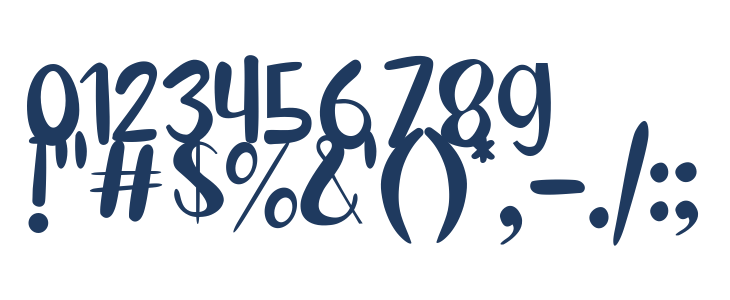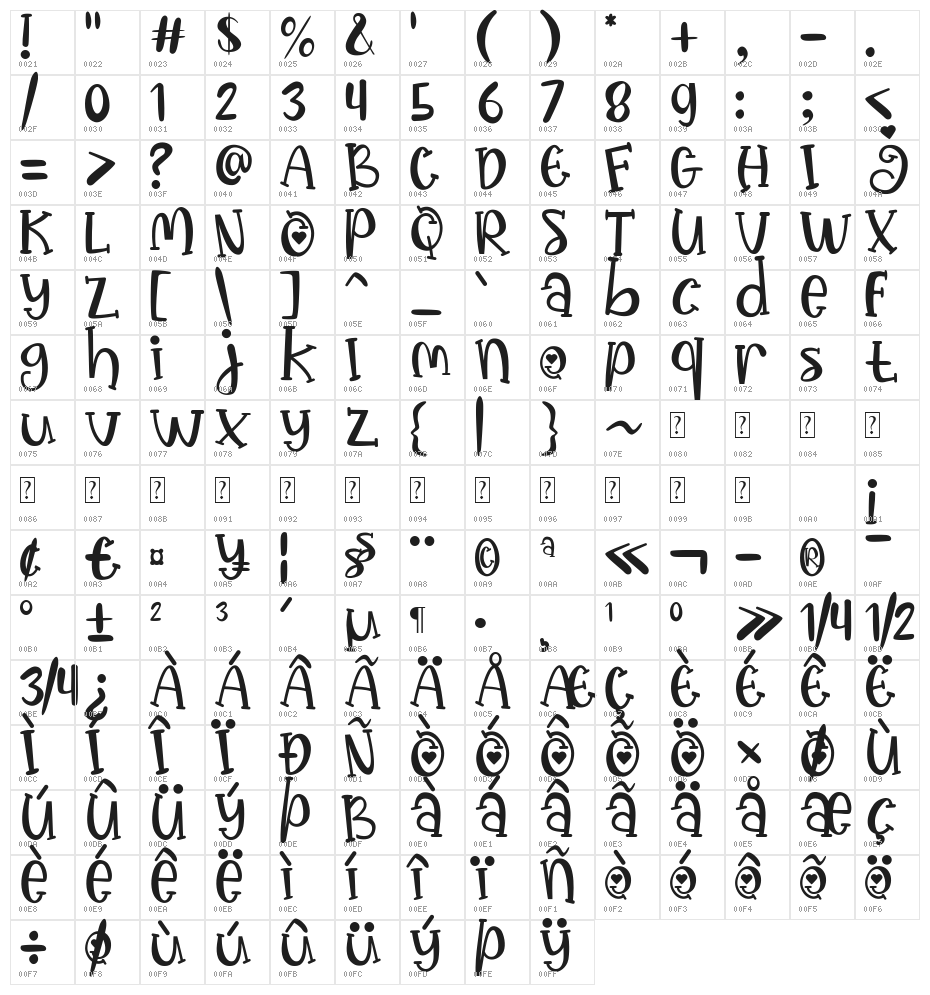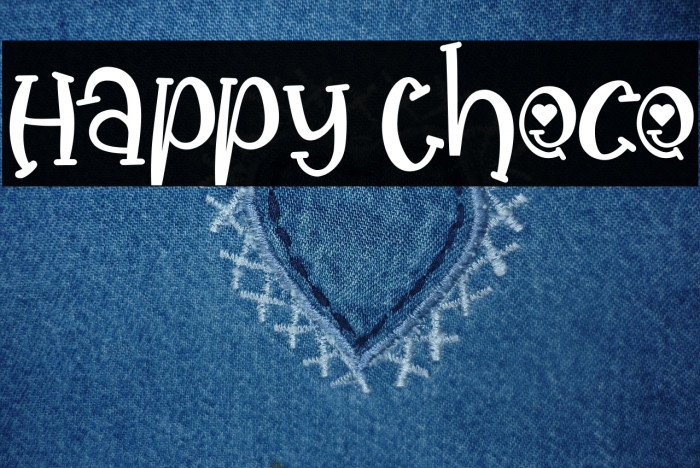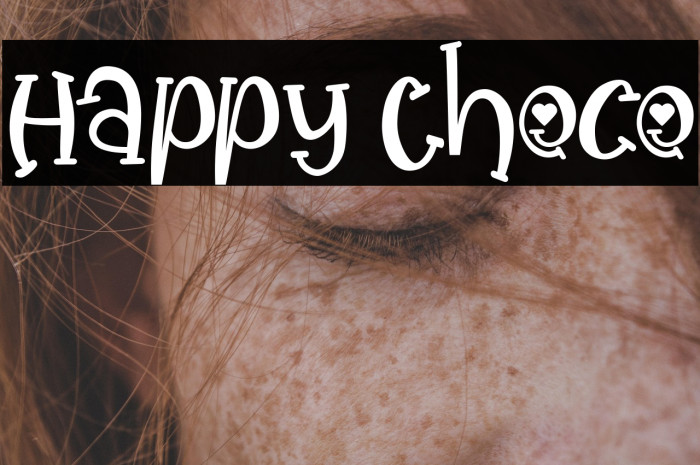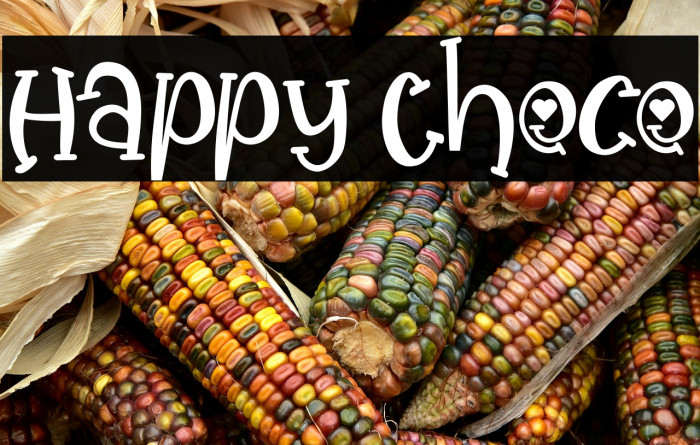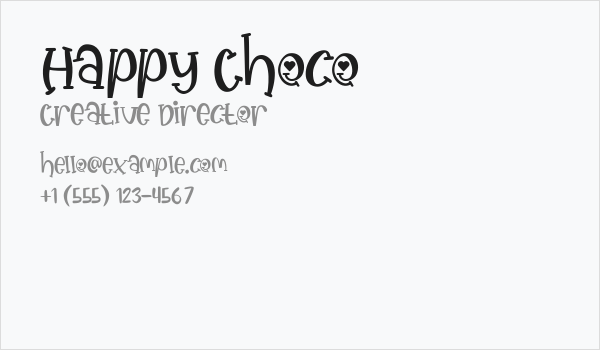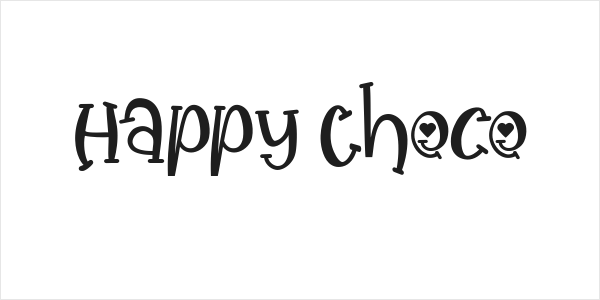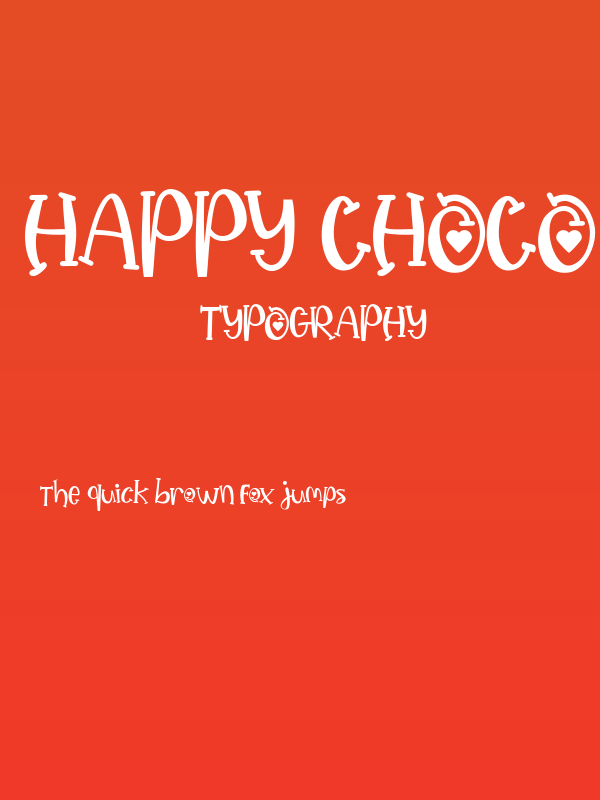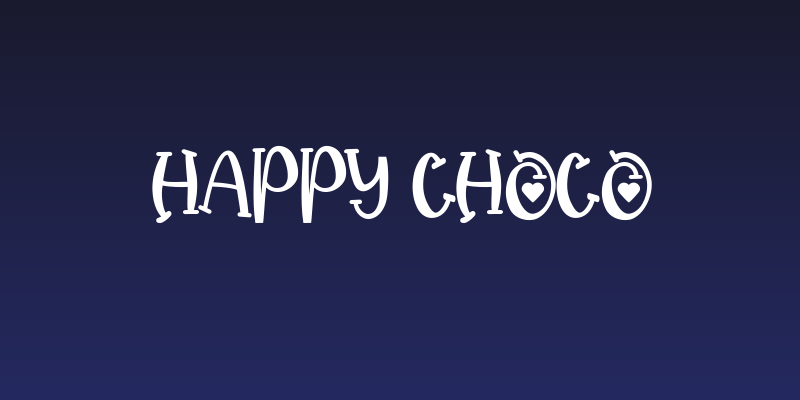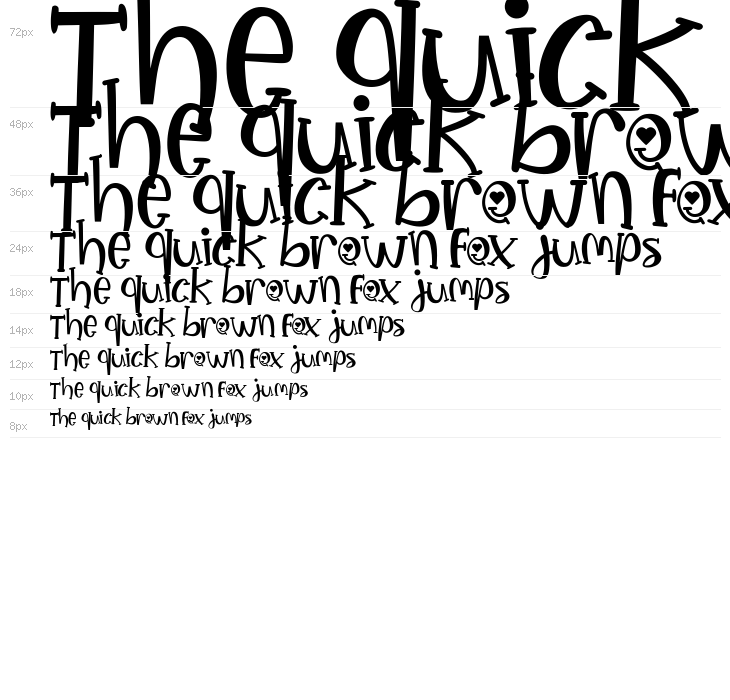
Happy Choco Font
Happy Choco Description
This playful and whimsical font features a unique blend of rounded and slightly irregular letterforms, creating a fun and friendly appearance. The uppercase letters are bold and expressive, with some characters incorporating heart motifs, adding a touch of charm and personality. The lowercase letters maintain a consistent style, with a slightly narrower width compared to the uppercase. Numbers are bold and rounded, complementing the overall playful aesthetic. Special characters are creatively designed, maintaining the font's lively and engaging style. This font is perfect for projects that require a cheerful and informal tone.
| Proposed Projects | Ideal for children's books, greeting cards, playful branding, and party invitations. |